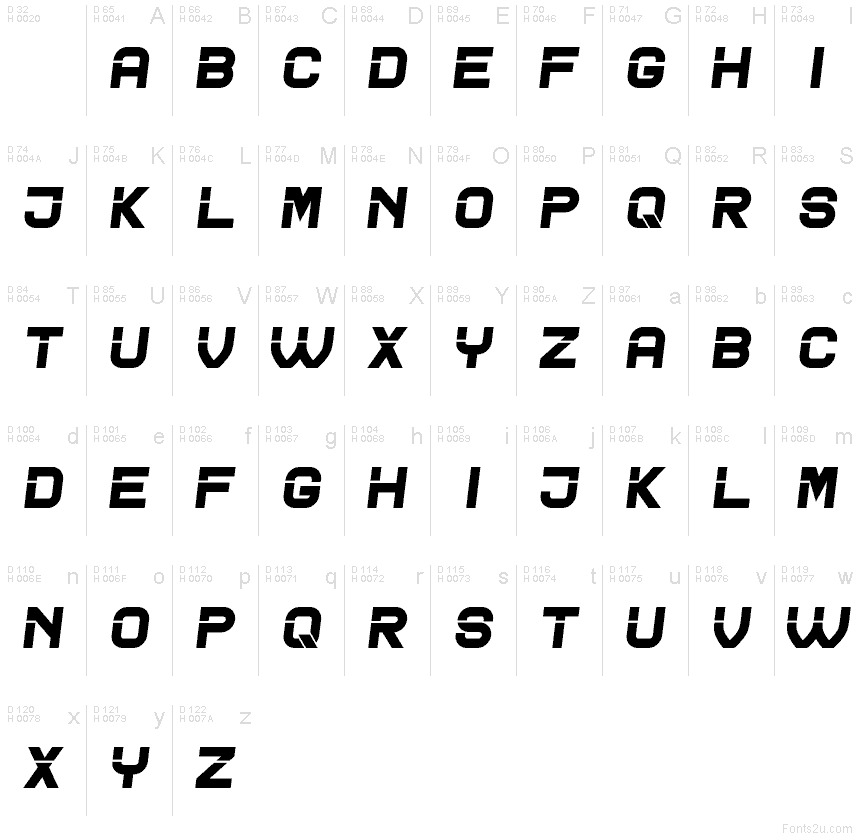
Network Book Italic
Network Book Italic font by Vladimir Nikolic is a free futuristic italic display typeface that feels like it’s already in motion. Part of the Network family, its forward-slanting forms, sharp diagonal cuts, and dense, blocky curves create a sense of speed and power, like bold lettering stenciled on the side of a race car or esports jersey. The letters lock tightly together, forming solid, almost mechanical word shapes that command attention in a loud, confident way.
Using Network Book Italic, you can push energy to the forefront of sports branding, racing posters, esports logos, streaming overlays, tech event graphics, and bold product packaging. This free font shines when set large, where its angular joints and compact rhythm read as one cohesive graphic mark. For longer supporting text, pair it with a clean geometric sans in regular weight to keep the focus on Network’s aggressive, high-impact headlines.